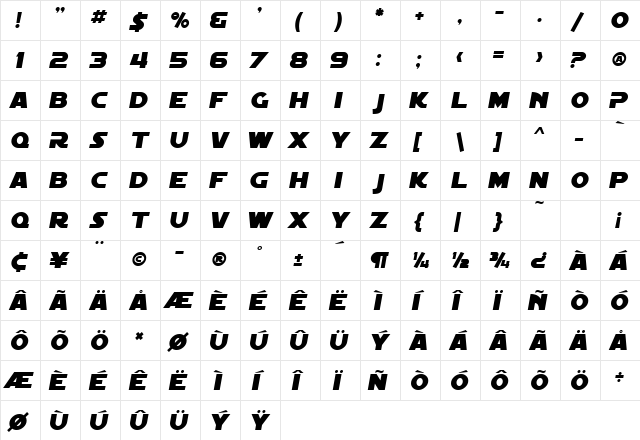
SF Distant Galaxy Italic Font Preview
SF Distant Galaxy Italic
Design Context for SF Distant Galaxy Typeface
SF Distant Galaxy is a composed and adaptable typeface that performs quietly and consistently across a wide range of design contexts. Its italic angle brings a sense of urgency and motion to the letterforms.
Pro Tip: Use SF Distant Galaxy for emphasis, pull quotes, and subheadings where its slanted energy can add rhythm to the layout.